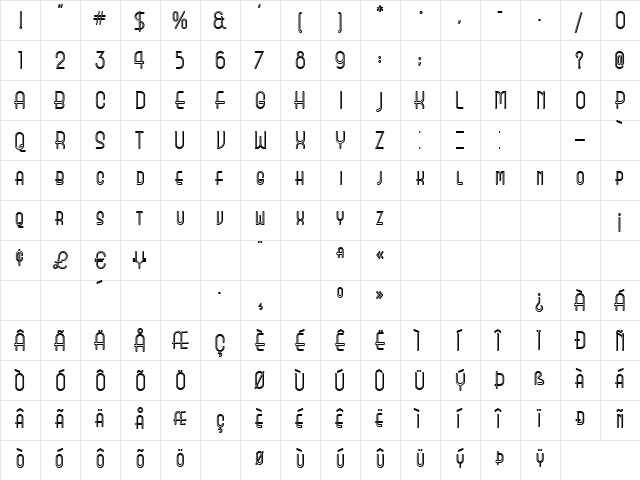
3 Neon DNA Regular
Design Context for 3 Neon DNA Typeface
3 Neon DNA channels digital-age aesthetics through its sharp, structured letterforms — ideal for brands that want to signal innovation.